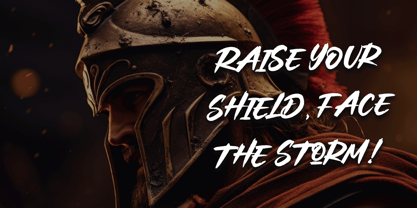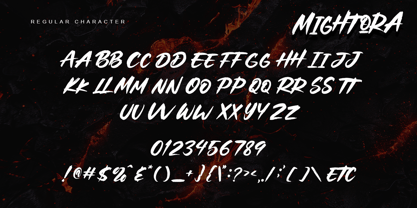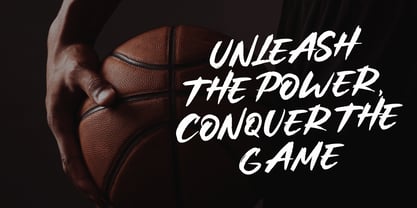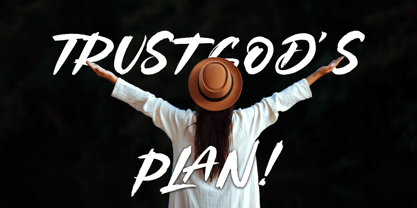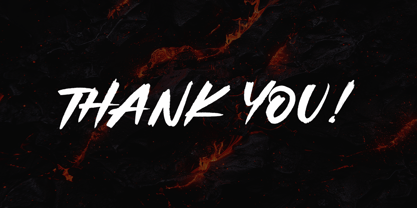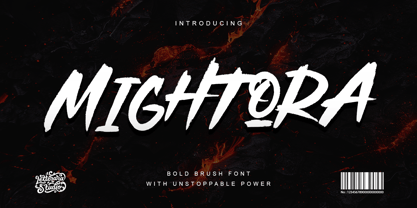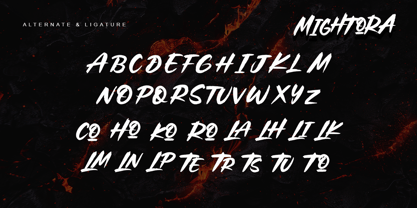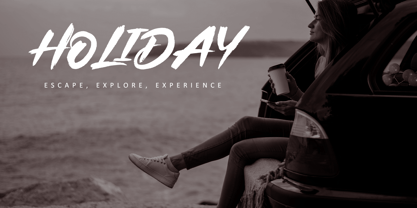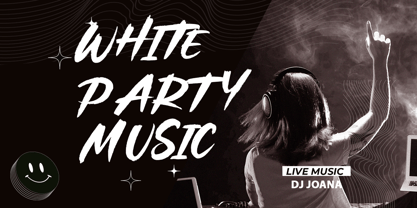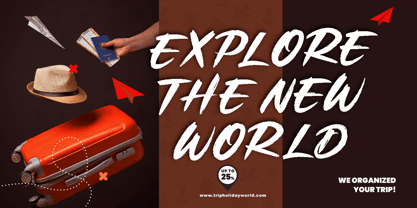
Mightora
by Letterara
The Mightora Font Family was designed by Thomas Aradea and published by Letterara. Mightora contains 2 styles and family package options. More about this family
Introducing Mightora is a fearless brush font forged in strength and power. Each stroke of Mightora strikes with the force of a warrior’s blade, radiating intensity, courage, and dominance. Designed with bold hand-drawn energy and raw texture, this typeface brings unstoppable spirit to every design it touches. From game titles and sports branding to movie posters, album covers, and titles, Mightora stands tall as a symbol of might and victory.   This font doesn’t just speak, it commands attention. Its dynamic flow and rugged form echo the roar of battle and the pride of a true champion. Fully PUA encoded and packed with alternates, Mightora gives you the power to create visuals that embody strength, action, and heroism.
Designers: Thomas Aradea
Foundry: Letterara